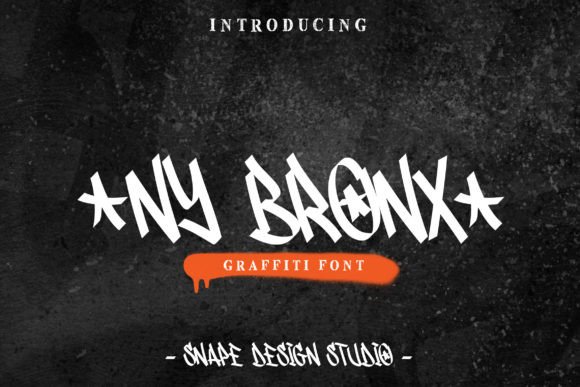
Unleash the Daring Energy of the Streets with NY Bronx Font: An Urban Symphony for Digital Creatives
In a world where digital expression reigns supreme, your creations hold the power to captivate and inspire. Let NY Bronx, the ultimate display font, be your graffiti virtuoso, transforming your designs into urban masterpieces. Its audacious, graffiti-inspired characters burst onto the scene, oozing with the raw, vibrant energy of street art.
Embark on a Journey Through the Heart of Urban Culture
With NY Bronx as your trusty companion, you'll traverse the bustling streets, absorbing the vibrant colors and gritty textures of urban life. Your designs will pulsate with the rhythm of the city, each character a stroke of genius capturing the indomitable spirit of the streets.
Ignite Your Creative Spark
NY Bronx is more than just a font; it's a catalyst for creative liberation. Its untamed nature breaks the chains of convention, inviting you to push boundaries and unleash your imagination. Let your designs radiate with authenticity and originality, captivating your audience with every stroke.
Paint Your Digital Canvas with Urban Flair
Unleash the full potential of NY Bronx with its diverse range of styles. Create striking headlines that demand attention, captivating logos that leave an indelible mark, and social media posts that electrify your audience. NY Bronx breathes life into your digital creations, turning them into captivating visual experiences.
Add an Edge of Attitude to Your Designs
NY Bronx is the perfect partner for designs that demand attention and ooze personality. Its bold, assertive characters command respect, making them ideal for branding, packaging, and street art-inspired projects. Let NY Bronx be your secret weapon to create designs that resonate with a youthful, urban audience.
Elevate Your Designs to Artistic Excellence
With NY Bronx at your disposal, mediocrity becomes a distant memory. Your designs will transcend the ordinary, captivating your audience with their untamed energy and urban flair. Prepare to witness a transformation as your creations evolve into masterpieces, resonating with the raw, undeniable power of the streets.